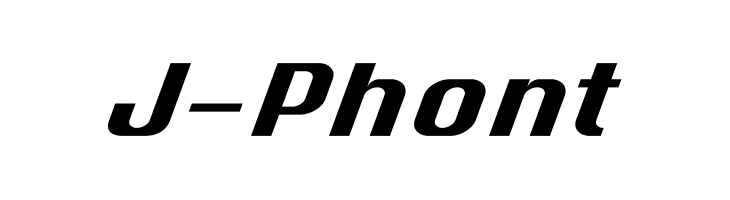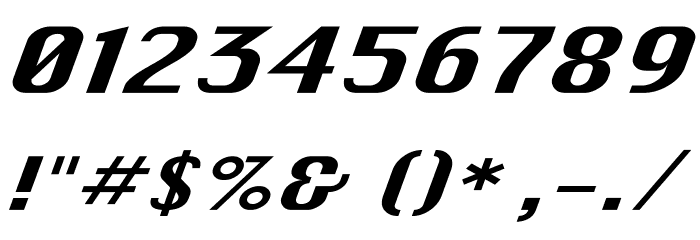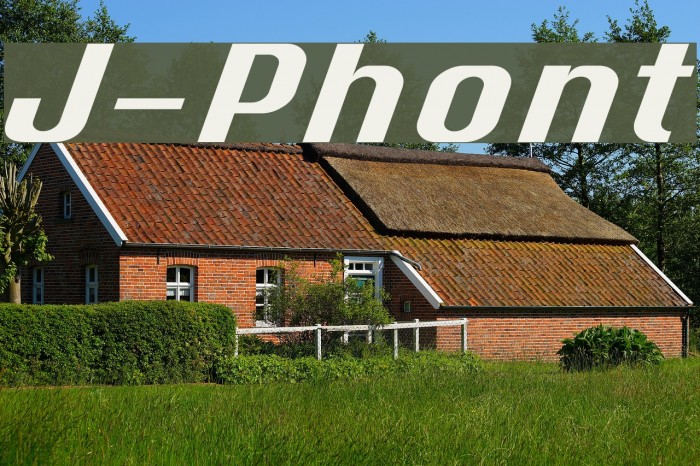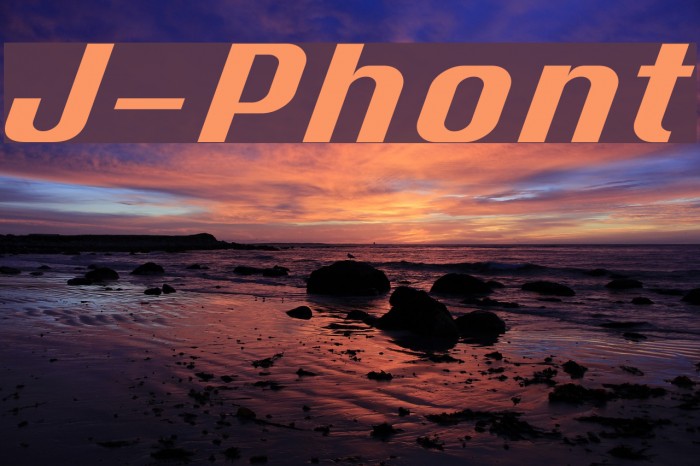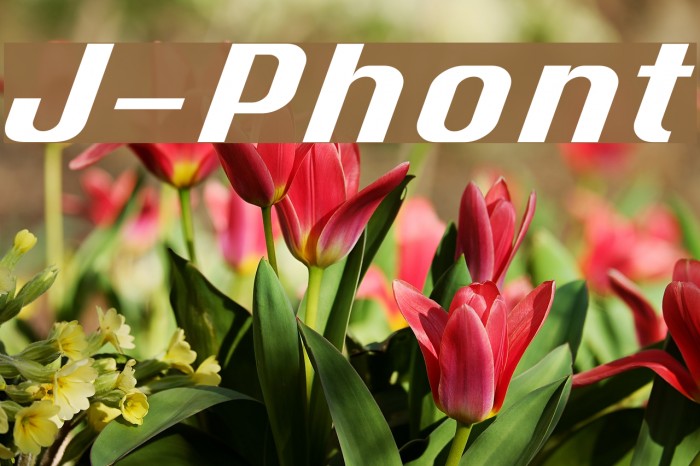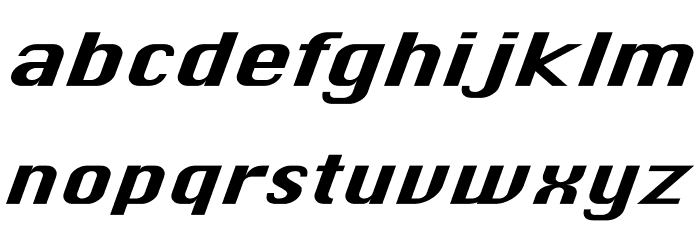
J-Phont Font
J-Phont Description
This font features a bold and dynamic style with a slight italic slant, giving it a sense of motion and energy. The characters are well-defined with a modern, streamlined appearance. The uppercase letters are particularly striking, with sharp angles and a consistent stroke width that conveys strength and confidence. The lowercase letters maintain this boldness while offering a more approachable feel. Numerals are clear and easy to read, matching the overall aesthetic of the font. Special characters are included, each designed to complement the font's cohesive look. The font's design is versatile, making it suitable for a variety of applications where a strong, modern impression is desired.
- Proposed Projects: Ideal for branding, advertising, sports team logos, and dynamic headlines.
- Category: Sans-Serif